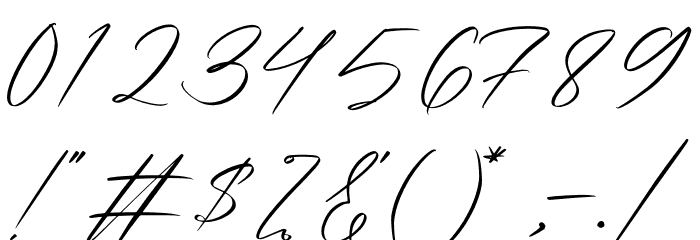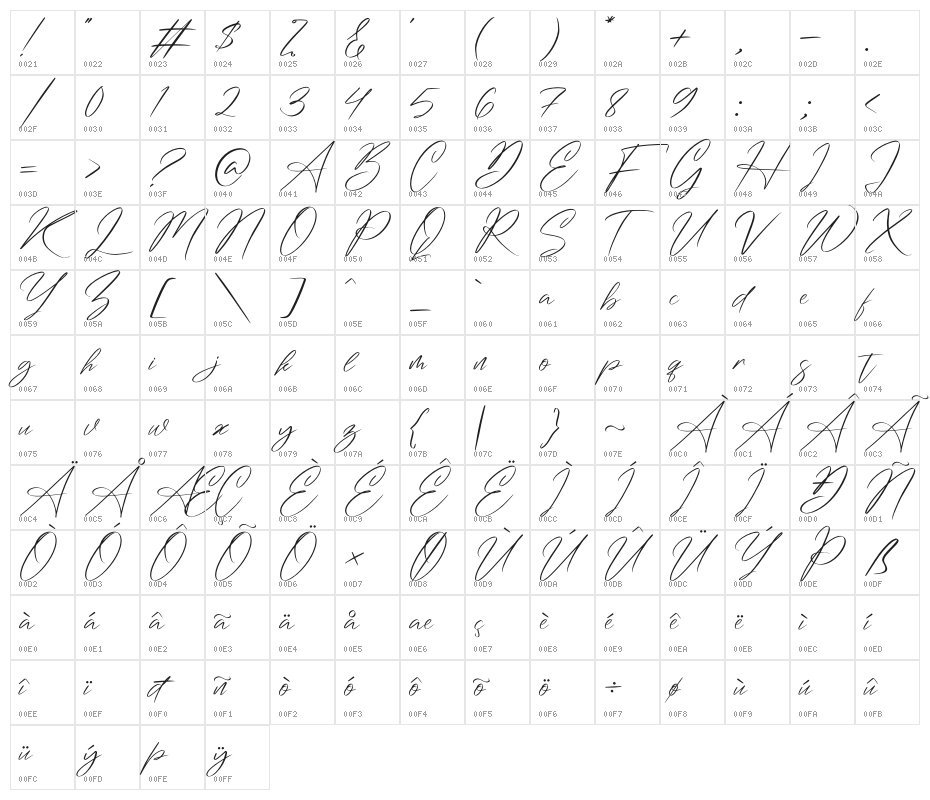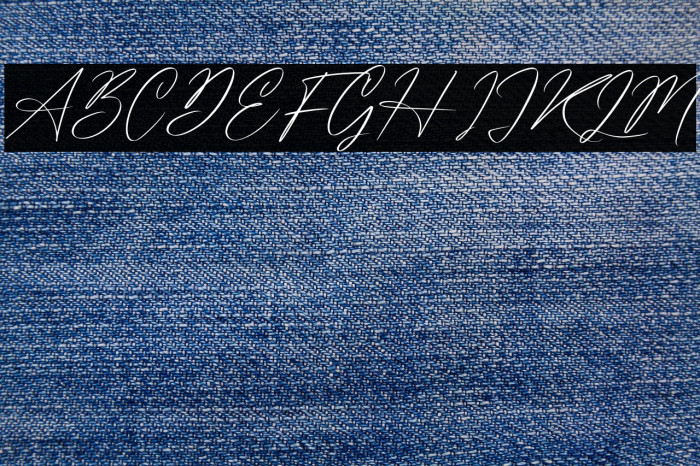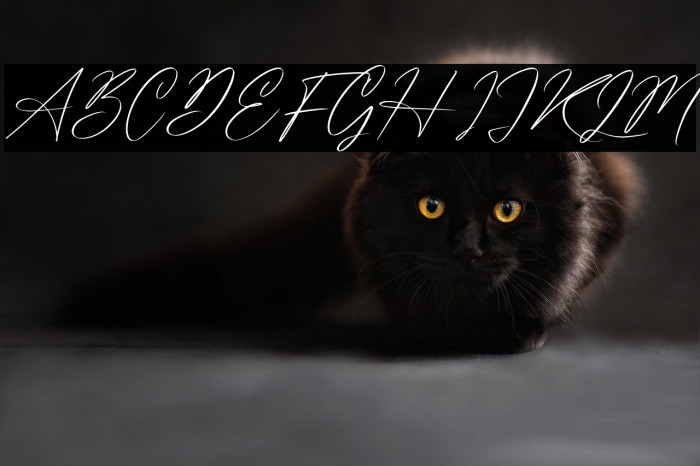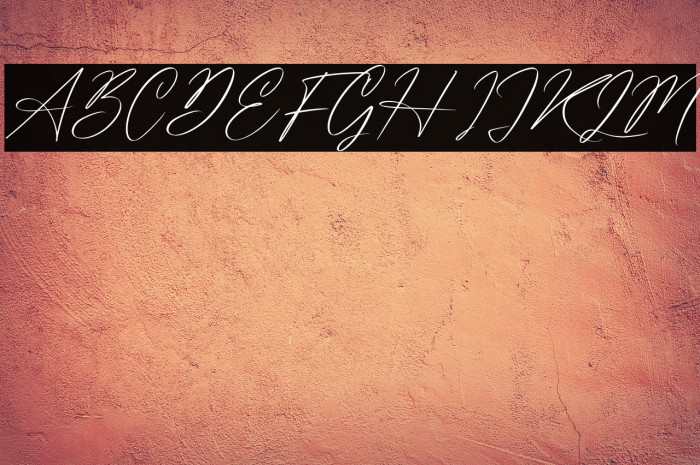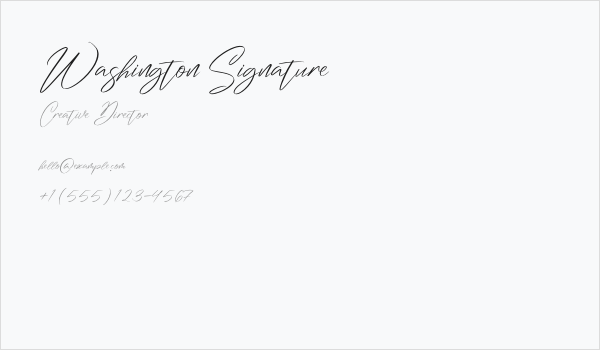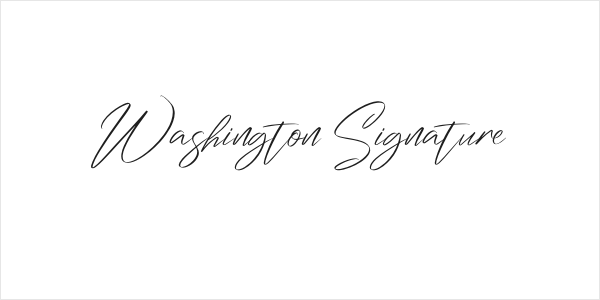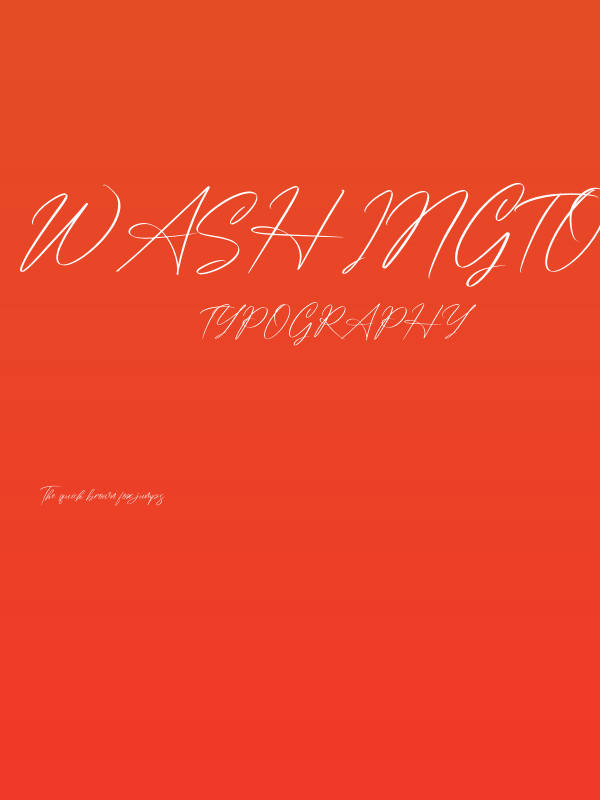
Washington Signature Font
Washington Signature Description
This elegant script font features a flowing, cursive style that mimics the fluidity of a handwritten signature. The uppercase letters are tall and slender, with graceful loops and swashes that add a touch of sophistication. The lowercase letters maintain a consistent slant, enhancing the overall cohesiveness of the design. Numbers and special characters are crafted with the same attention to detail, ensuring a harmonious appearance across all text. The font's delicate strokes and refined curves make it ideal for projects that require a personal, yet polished touch.